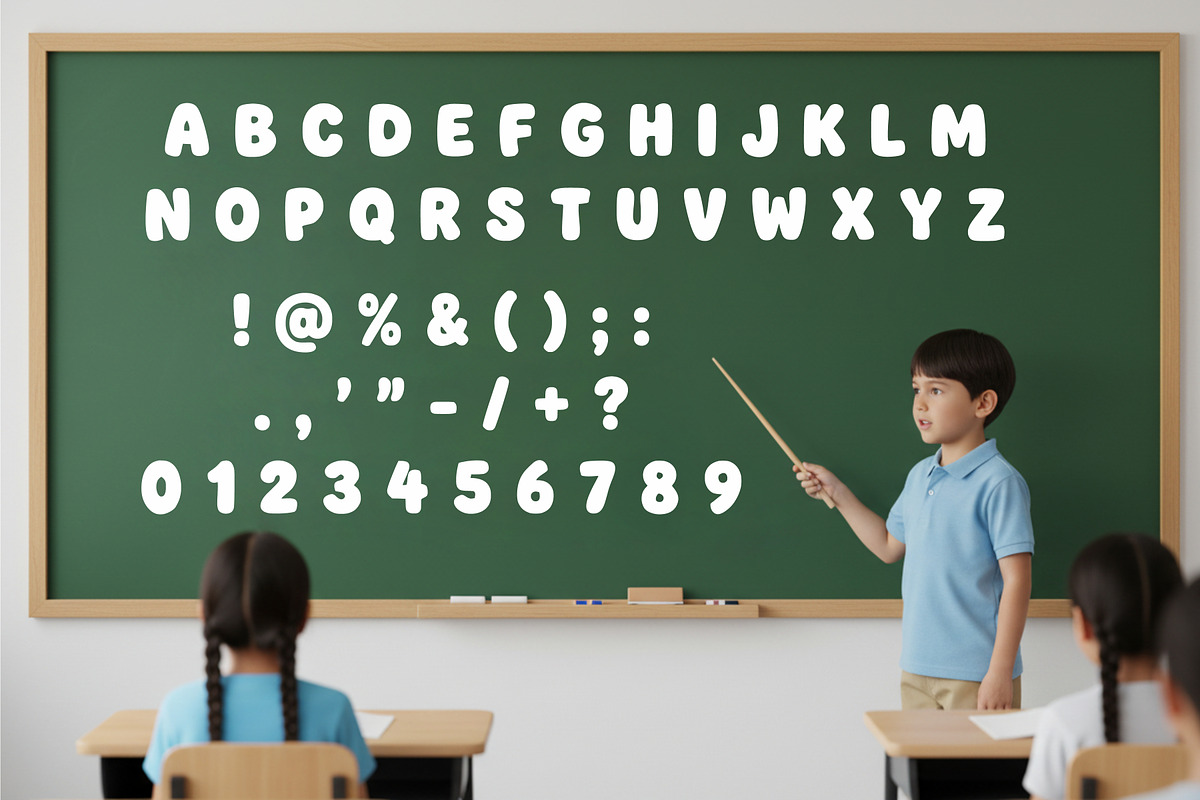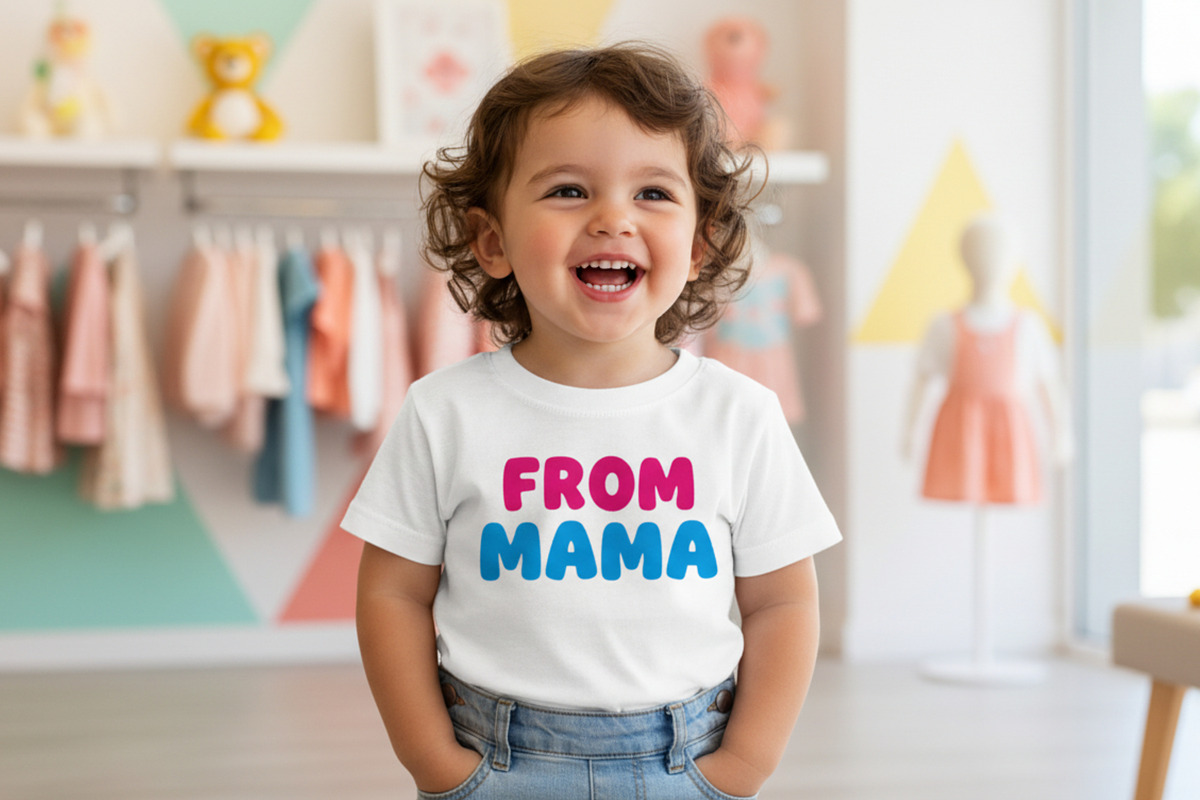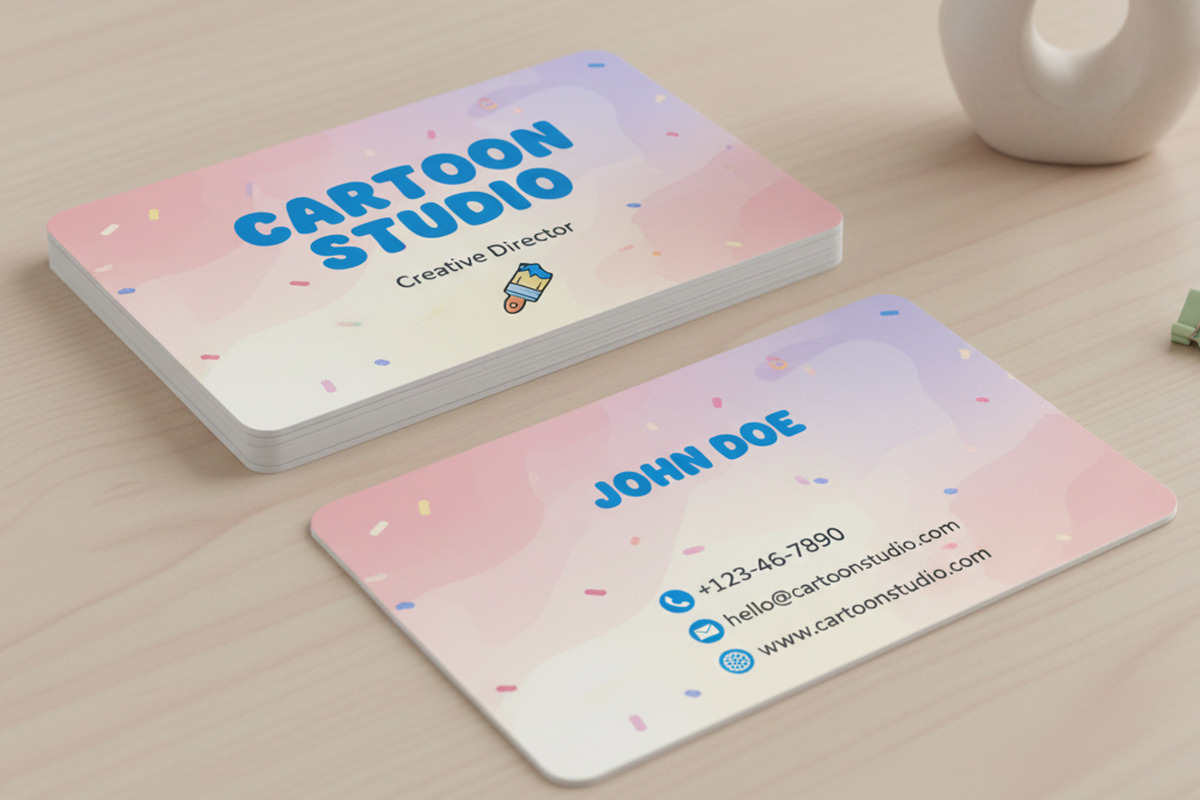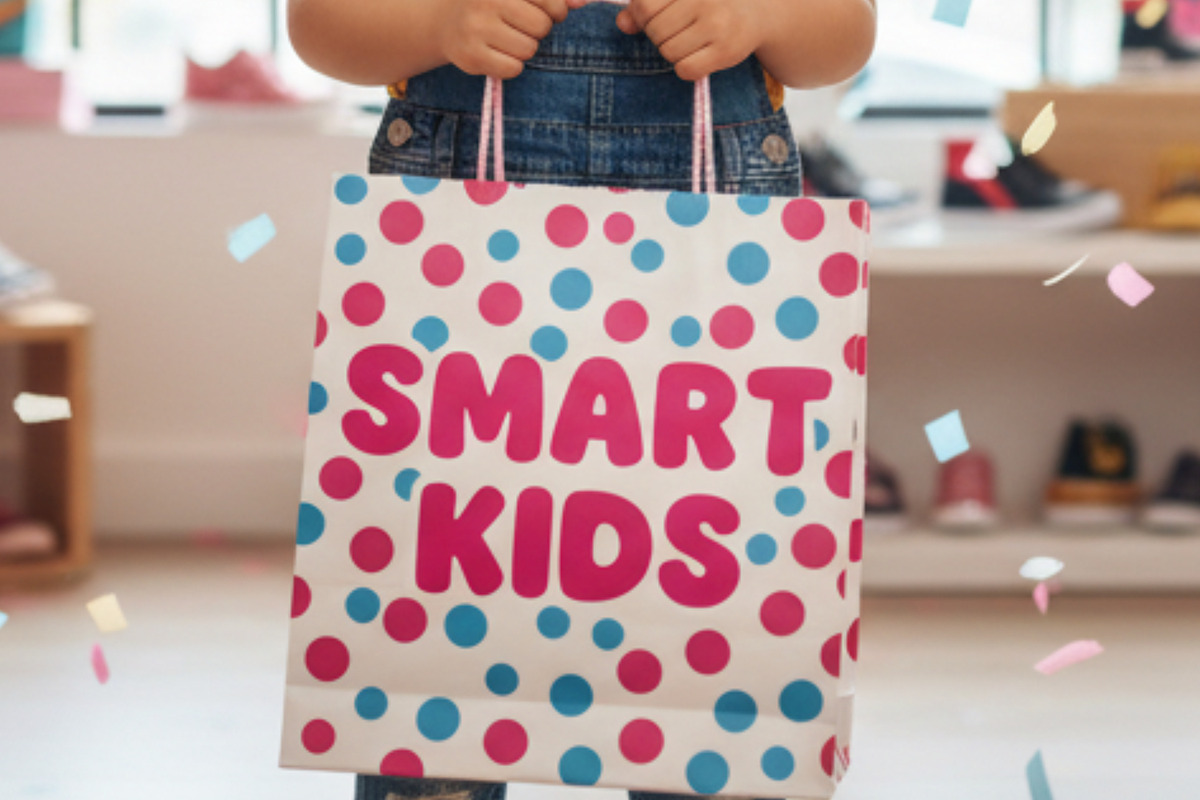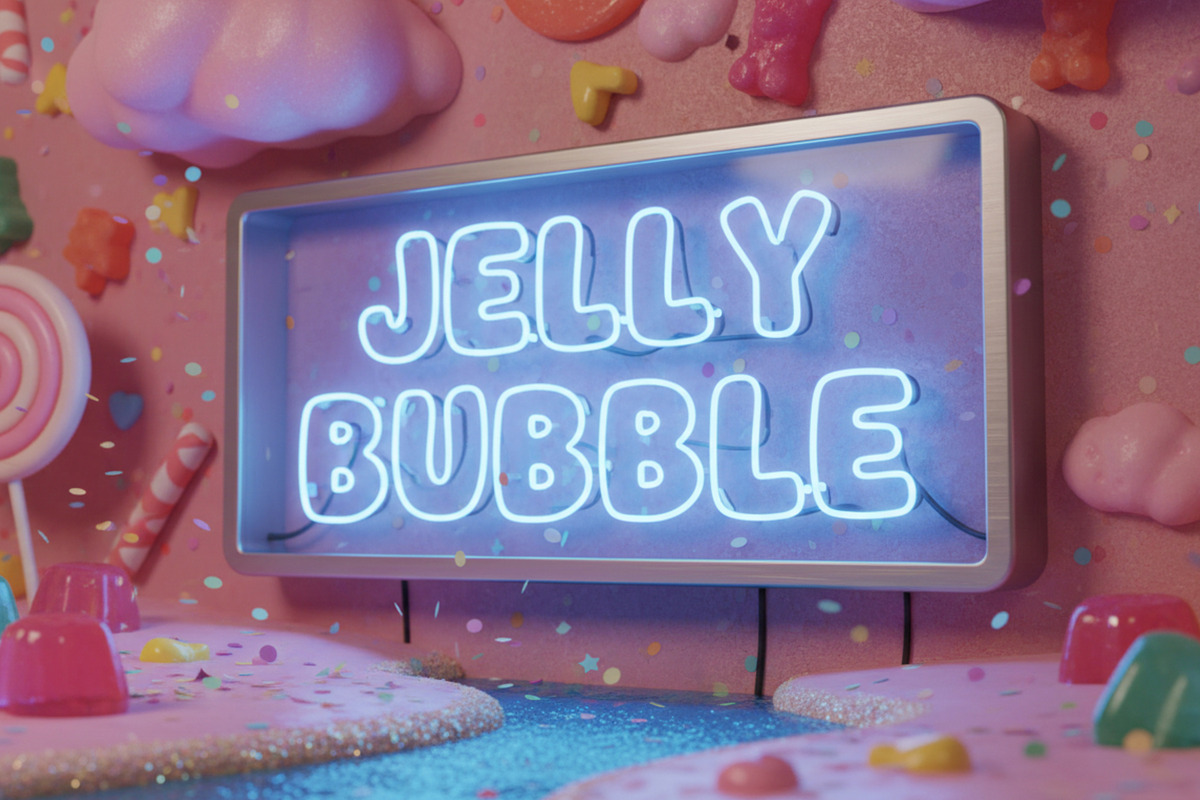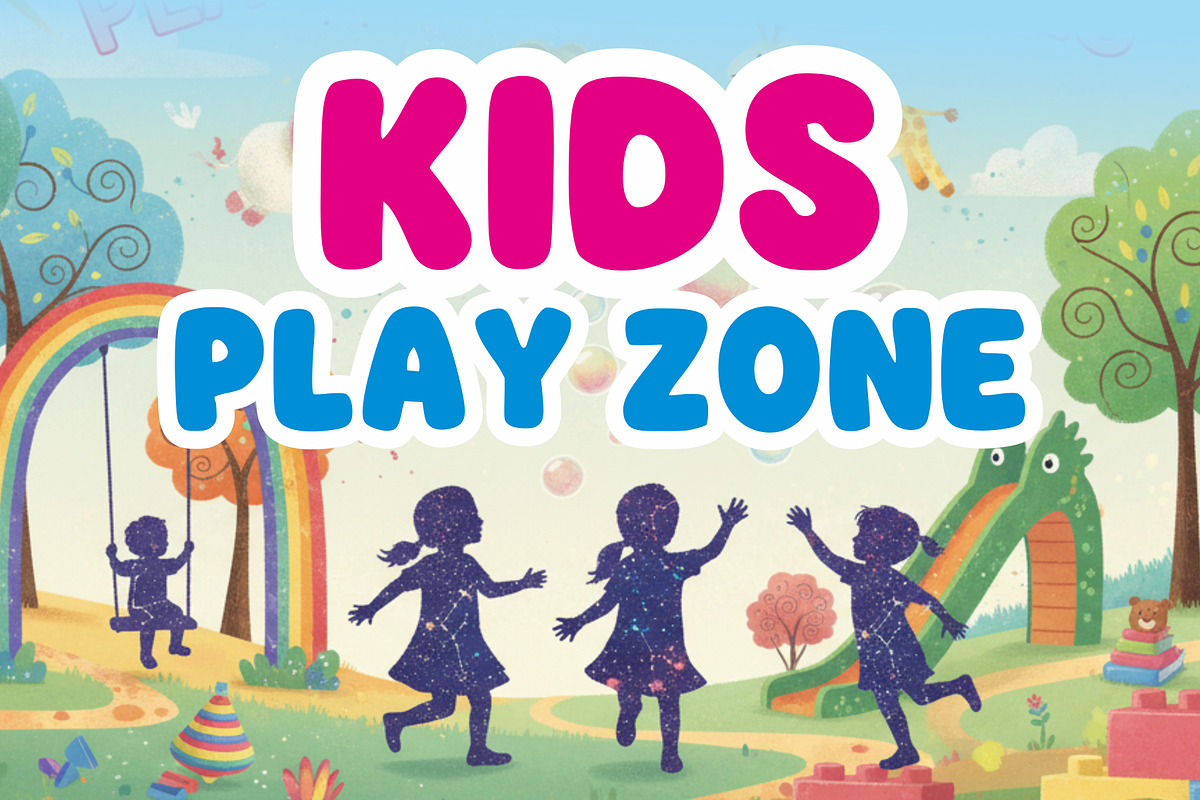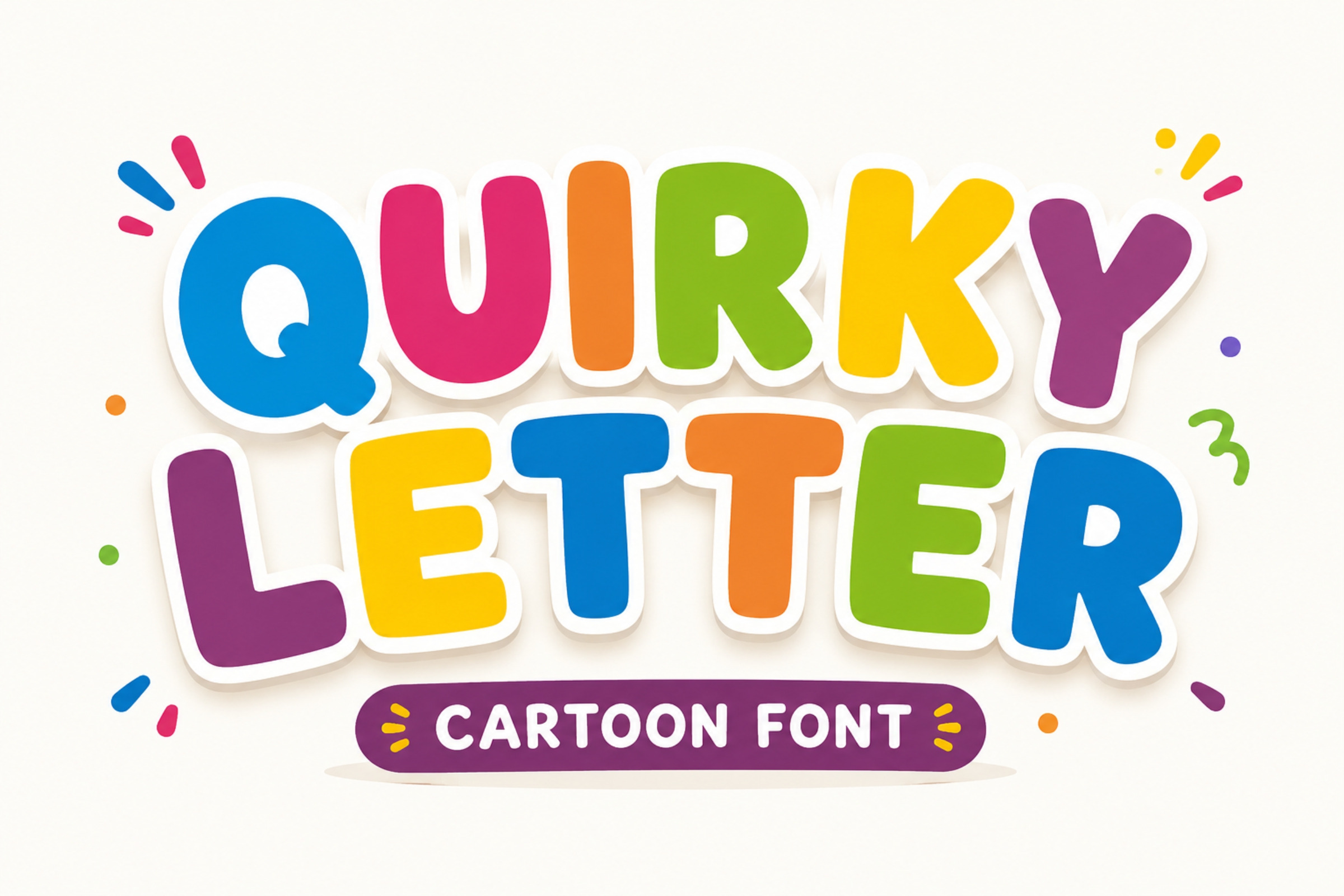
Quirky Letter – Playful Font
Quirky Letter is a playful cartoon display font featuring bold rounded characters, soft curves, and a cheerful personality. Designed to bring joy and creativity to every project, this font is ideal for children's products, birthday invitations, school materials, toy packaging, comic titles, logos, posters, social media graphics, stickers, t-shirts, and craft designs.
Its friendly letterforms and vibrant style make it suitable for both print and digital applications. Whether you're designing for kids or creating fun branding, Quirky Letter adds a bright and energetic touch.
Uppercase Letters
High Readability
Fun & Modern Style